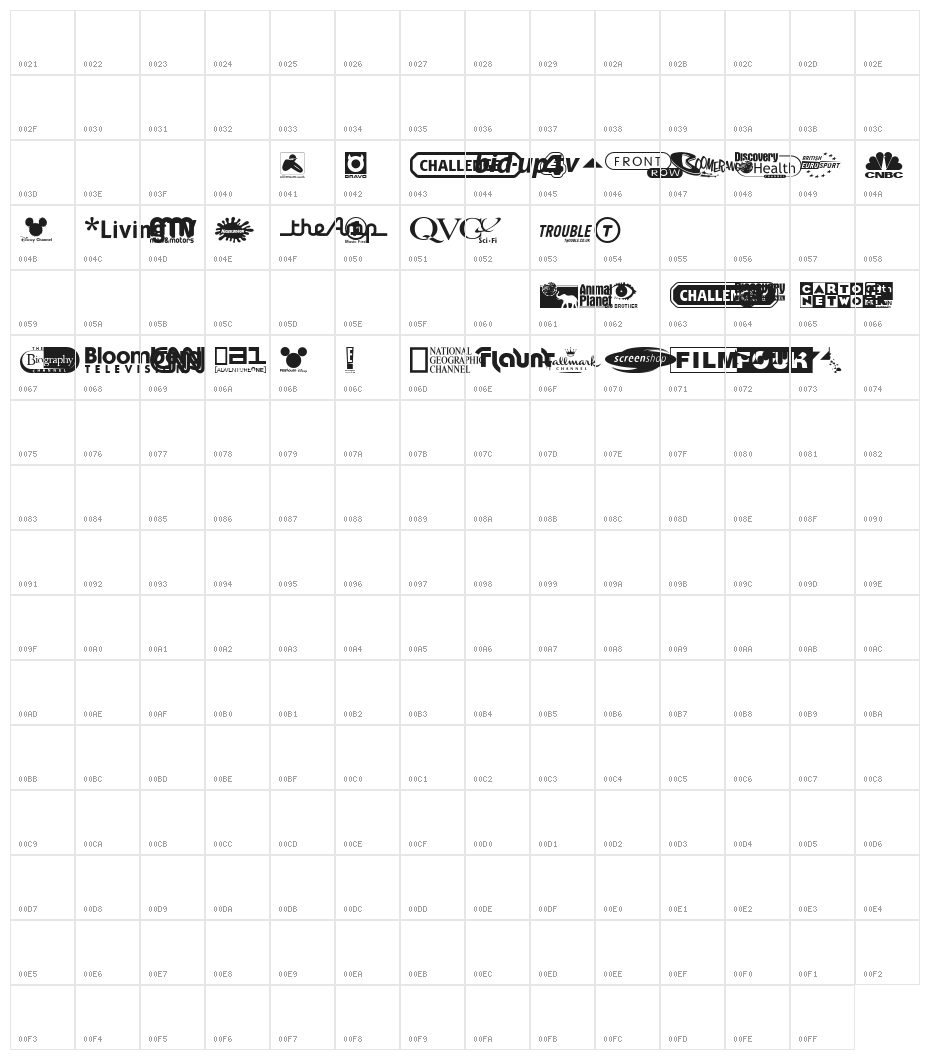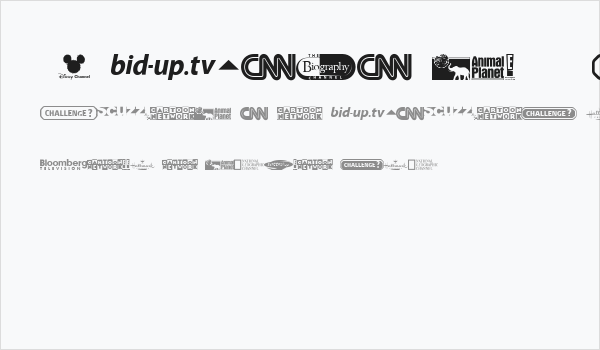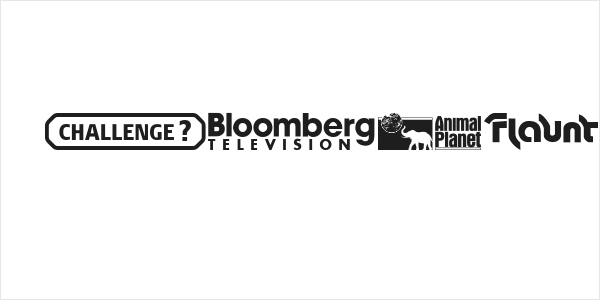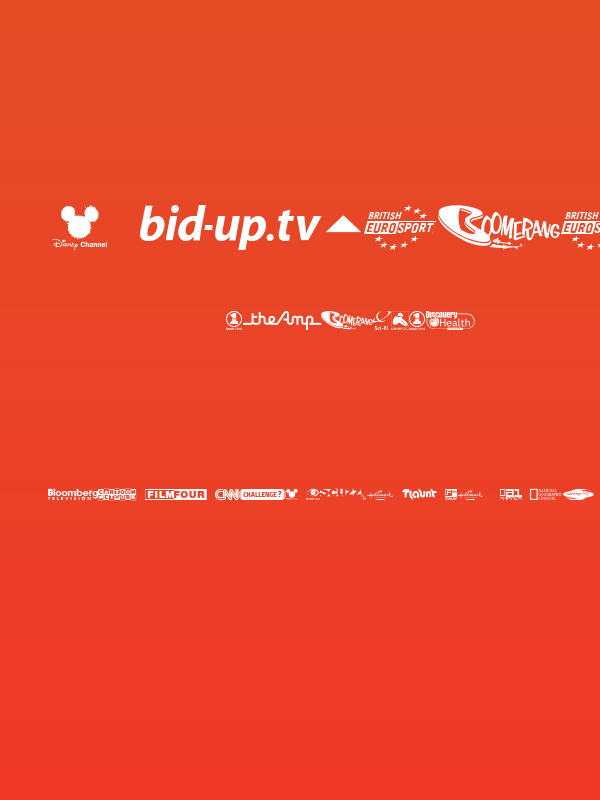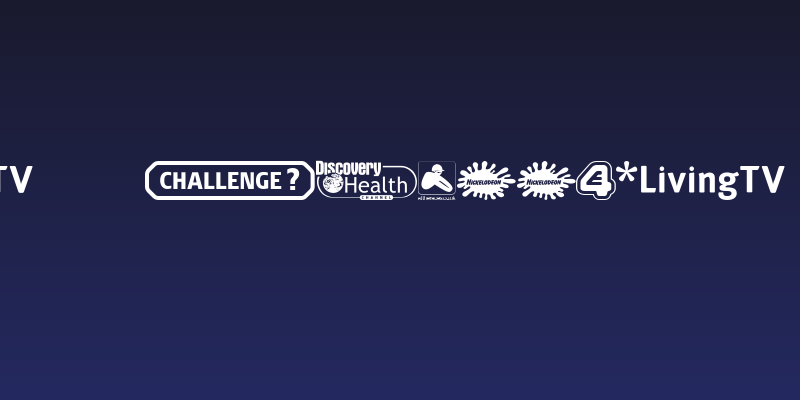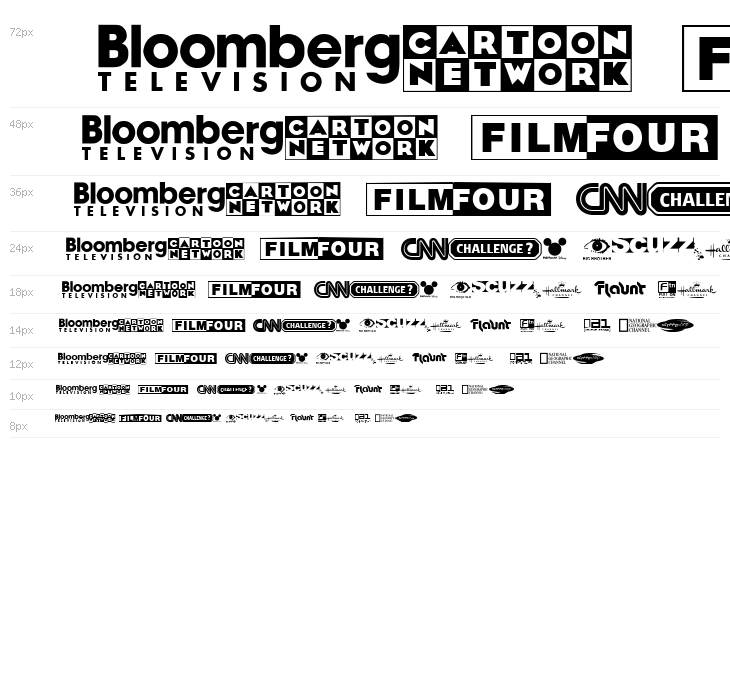
UK Digital TV Channel Logos Font
UK Digital TV Channel Logos Description
A diverse collection of logo wordmarks, each using distinct font styles ranging from geometric sans-serif to playful script and bold display, with varying weights, widths, and decorative elements. Some logos incorporate unique letterforms, custom ligatures, or iconography integrated with the text.
| Overall Style | Decorative, Modern, Playful, Custom |
| Use Case | Logos, Branding, Headlines |
| Proposed Projects | TV channel logos, entertainment branding, event promotions, youth-oriented campaigns, music or sci-fi themed graphics. |